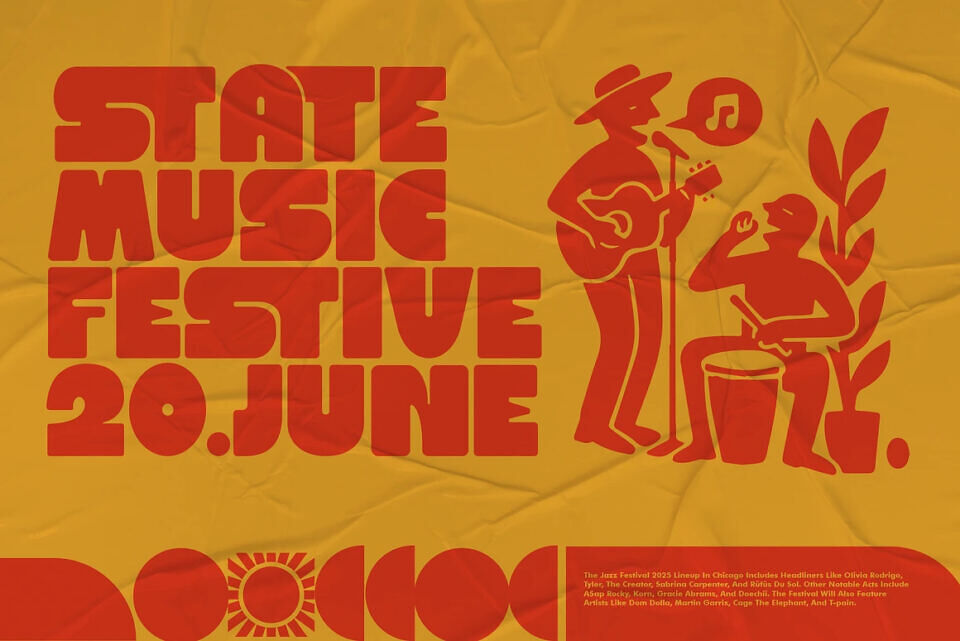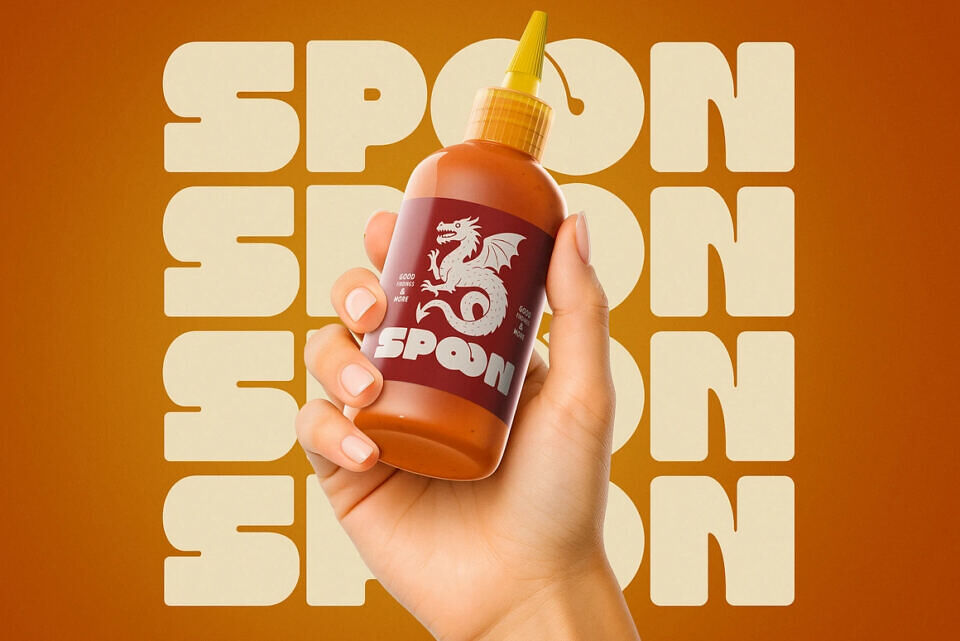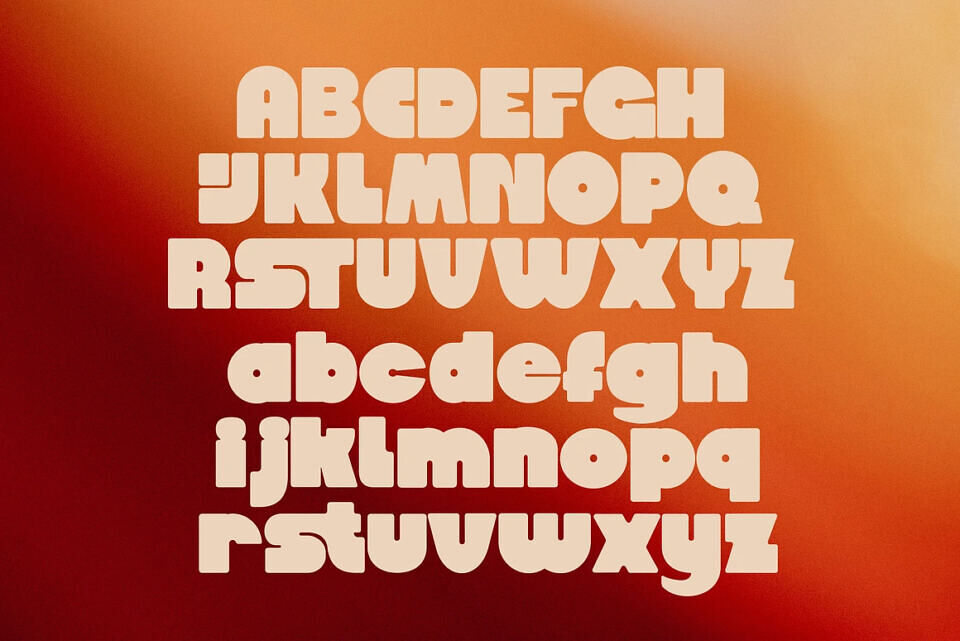
Loca Font
Introducing The Loca, a bold retro block typeface that captures the essence of 70s sunshine and street culture. With its chunky shapes, rounded corners, and playful letterforms, this font brings a vibrant attitude and nostalgic charm to any design.
The Loca is designed to stand out. Whether you’re working on a funky logo or an eye-catching headline, this typeface delivers maximum impact with a touch of retro fun.